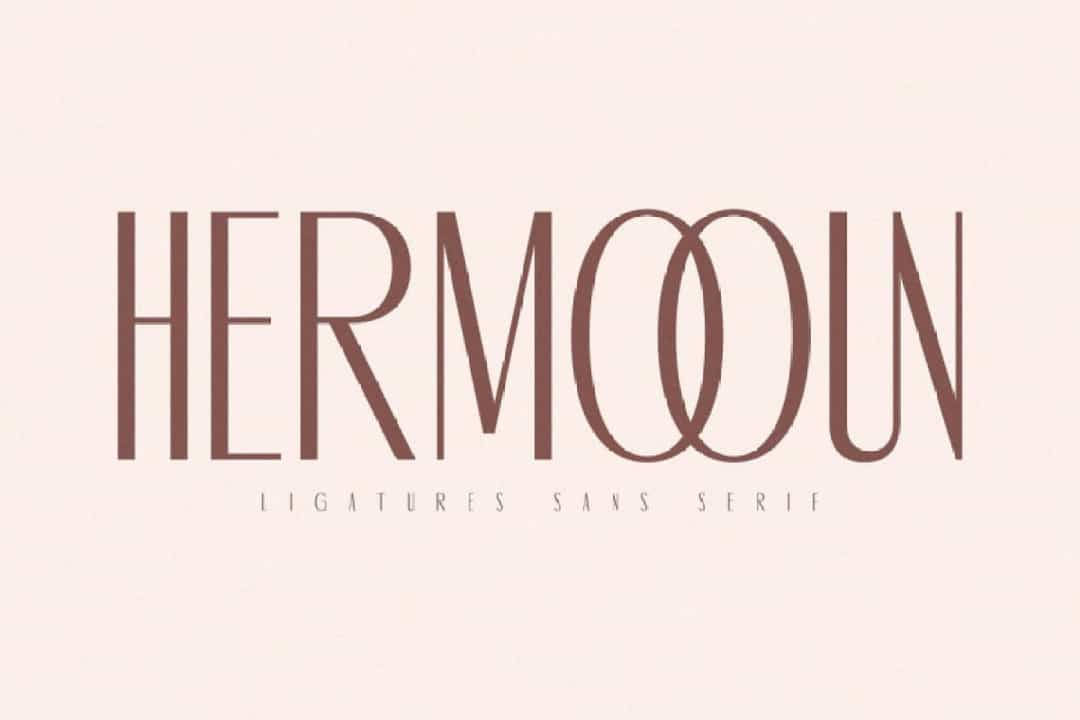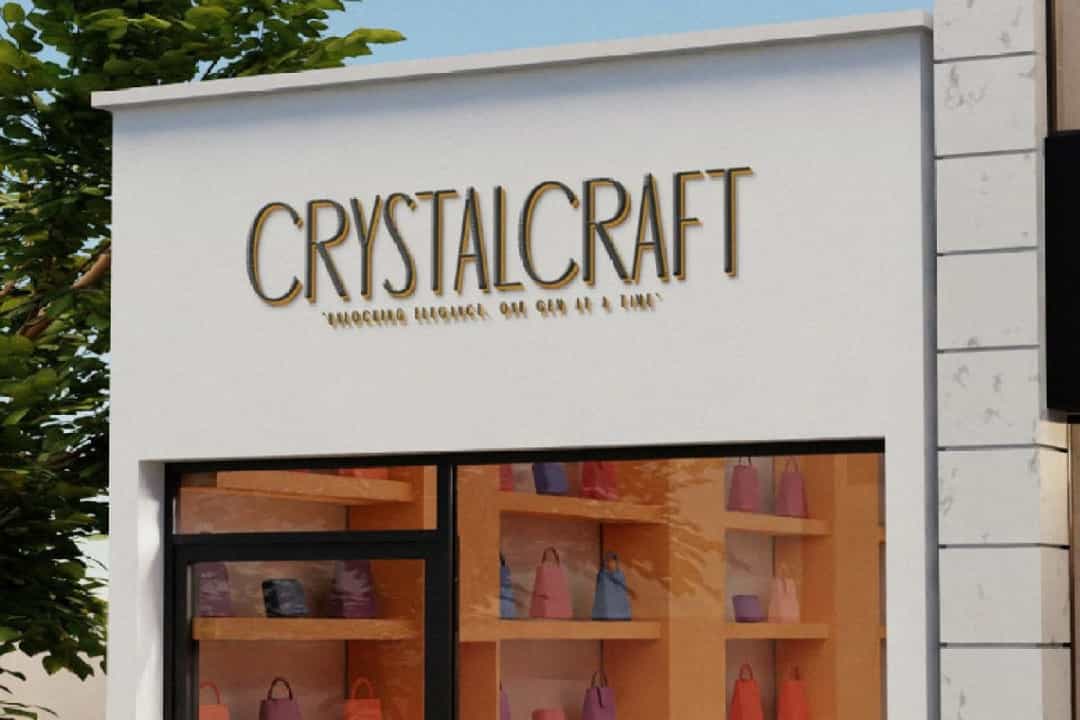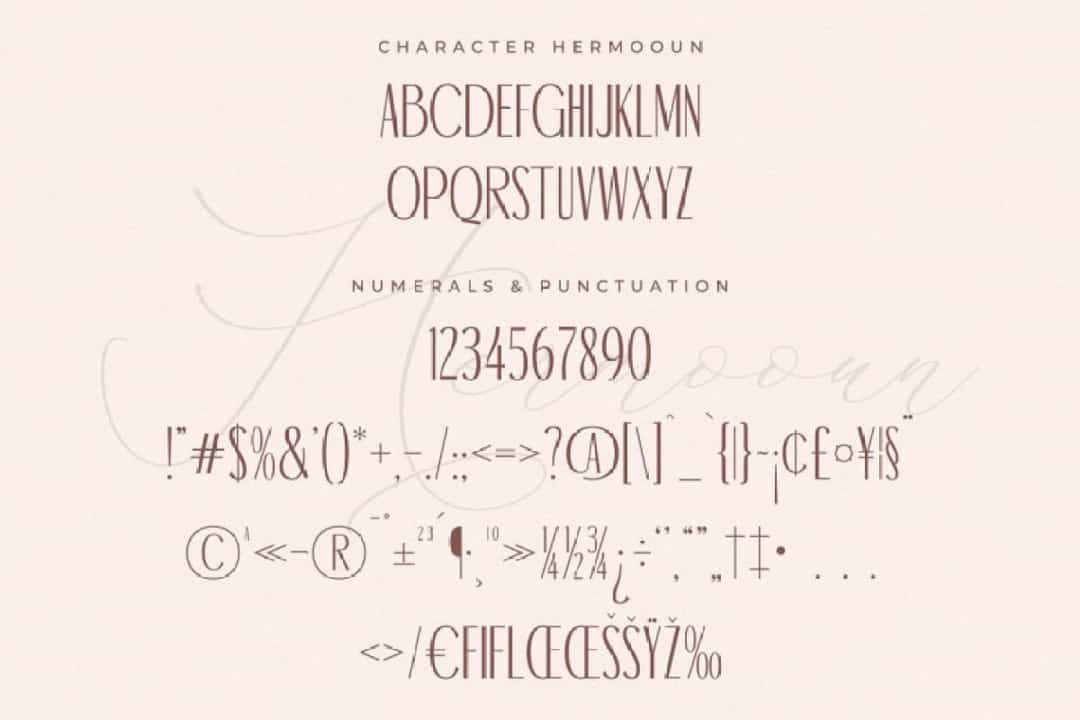
Hermooun is an elegant and contemporary sans serif typeface with its own distinct style and appearance. Perfect for creating classy logos, book or movie name designs, fashion brand clothing designs, magazine letters and quotes among many other uses – Hermooun This typeface provides you with everything needed for elegant logo design!